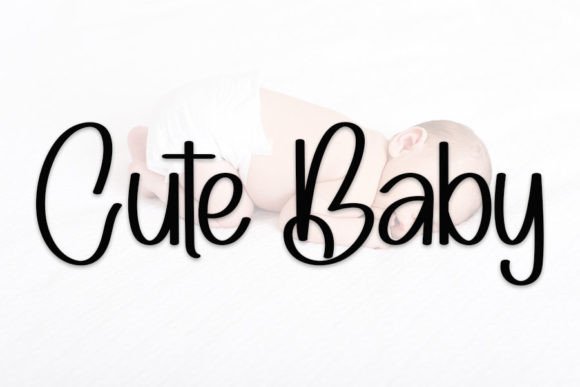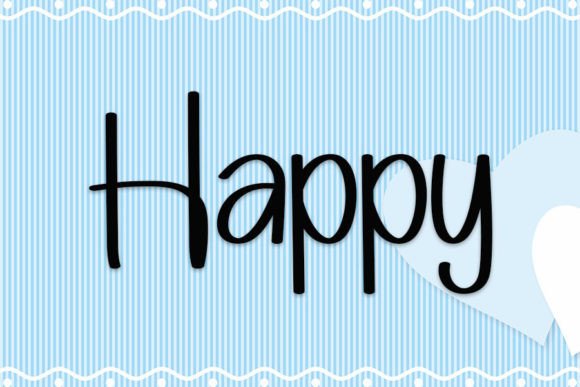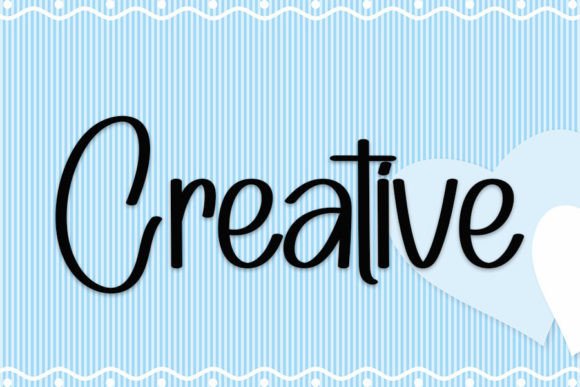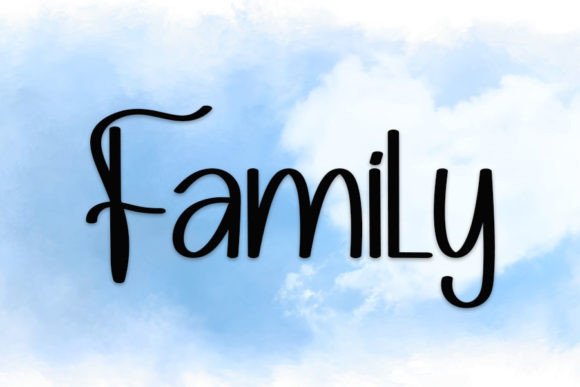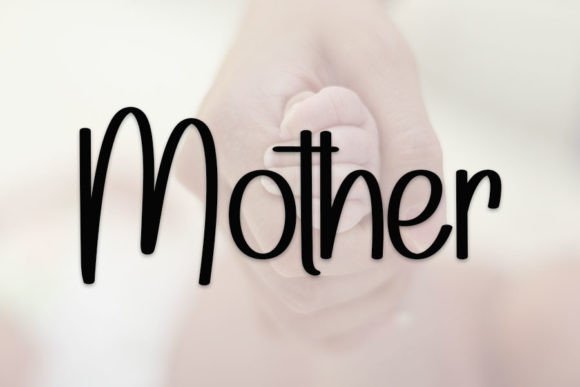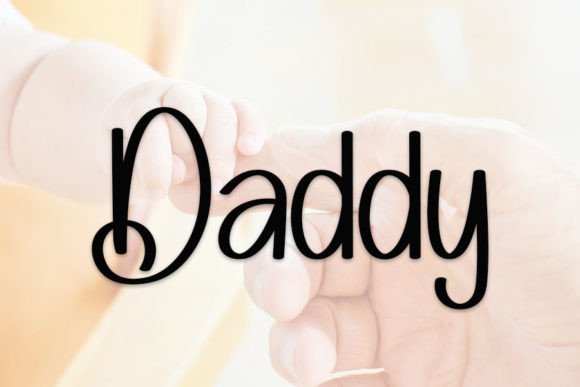
Baby Boy Font: The Elegant Choice for Your Design Projects
Are you looking for a font that exudes elegance and sophistication? Look no further than the Baby Boy font, a beautiful handwritten font that is sure to capture your heart. With its incredibly distinct and timeless style, this font is perfect for designers and crafters who want to create spectacular designs that stand out from the crowd.
What is Baby Boy Font?
Baby Boy font is a neat and beautiful handwritten font that is described by an elegant touch. It is a carefully crafted font that is designed to add a touch of sophistication and elegance to any design project. Whether you’re working on a logo, a poster, a wedding invitation, or a social media graphic, this font is sure to impress.
Key Features of Baby Boy Font
- Elegant and Sophisticated: Baby Boy font has an incredibly distinct and timeless style that exudes elegance and sophistication.
- Handwritten: This font is a beautiful handwritten font that adds a personal touch to any design project.
- Neat and Beautiful: The font is carefully crafted to ensure that it is neat and beautiful, making it perfect for a wide range of design projects.
- Timeless Style: The font has a timeless style that will never go out of fashion, making it a great investment for designers and crafters.
Why Choose Baby Boy Font?
There are many reasons why you should choose Baby Boy font for your design projects. Here are a few:
- Unique and Distinctive: Baby Boy font has a unique and distinctive style that will set your designs apart from the crowd.
- Elegant and Sophisticated: The font exudes elegance and sophistication, making it perfect for high-end design projects.
- Versatile: Baby Boy font can be used for a wide range of design projects, from logos and posters to wedding invitations and social media graphics.
- Easy to Read: The font is easy to read, making it perfect for designs that require a lot of text.
How to Use Baby Boy Font?
Using Baby Boy font is easy. Here are a few tips:
- Pair it with Other Fonts: Baby Boy font pairs well with other fonts, so feel free to experiment with different combinations.
- Use it for Headings: The font is perfect for headings and titles, so use it to add a touch of elegance and sophistication to your designs.
- Experiment with Colors: Baby Boy font looks great in a variety of colors, so don’t be afraid to experiment and find the perfect color for your design.
Design Ideas Using Baby Boy Font
Here are a few design ideas that you can use Baby Boy font for:
- Wedding Invitations: Use Baby Boy font to create beautiful and elegant wedding invitations that will set the tone for the big day.
- Logos: The font is perfect for logos, so use it to create a unique and distinctive brand identity.
- Posters: Baby Boy font is great for posters, so use it to create eye-catching and elegant designs.
- Social Media Graphics: The font is perfect for social media graphics, so use it to create engaging and elegant designs that will stand out from the crowd.
In conclusion, Baby Boy font is a beautiful and elegant handwritten font that is perfect for designers and crafters who want to create spectacular designs. With its incredibly distinct and timeless style, this font is sure to capture your heart and add a touch of sophistication and elegance to any design project. So why wait? Fall in love with Baby Boy font and use it to create designs that will stand out from the crowd.